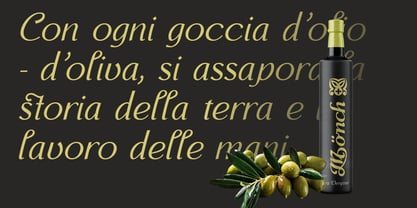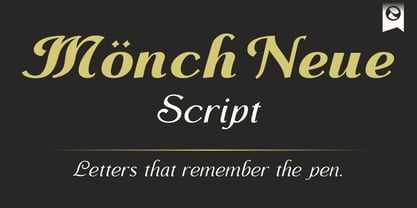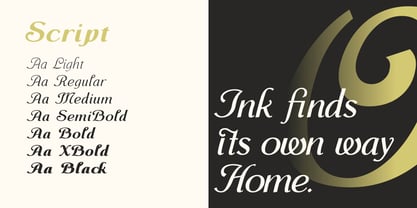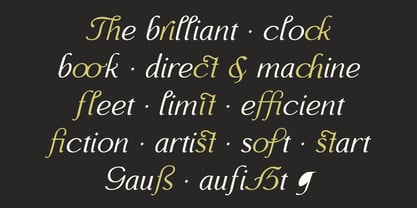
Monch Neue Script
by Monovo
The Monch Neue Script Font Family was designed by Amondó Szegi and published by Monovo. Monch Neue Script contains 7 styles and family package options. More about this family
Mönch Neue Script is the hand behind the press. Where Roman sets the structure and Italic refines it, Script remembers where letters came from — drawn, continuous, alive. Organic curves, flowing connections, and the kind of warmth that classical serifs deliberately left behind. Built from the same historical DNA as the rest of the family, Script carries the Mönch Neue character into territory where typography becomes gesture. It works alongside Roman and Italic when editorial elegance needs a human touch — and stands alone when the brief calls for something warmer than a serif but more considered than a casual script. Seven weights. Packaging, editorial, digital, identity — wherever the italic isn't quite enough. Letters that remember the pen.
Designers: Amondó Szegi
Foundry: Monovo